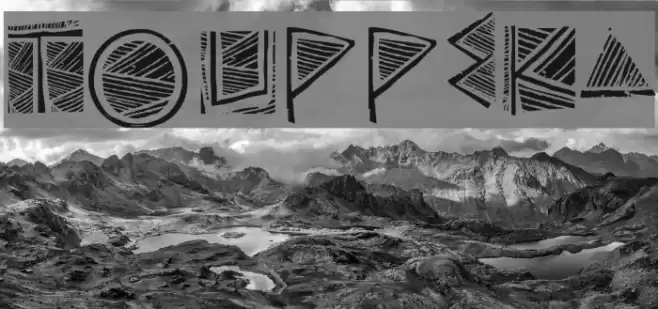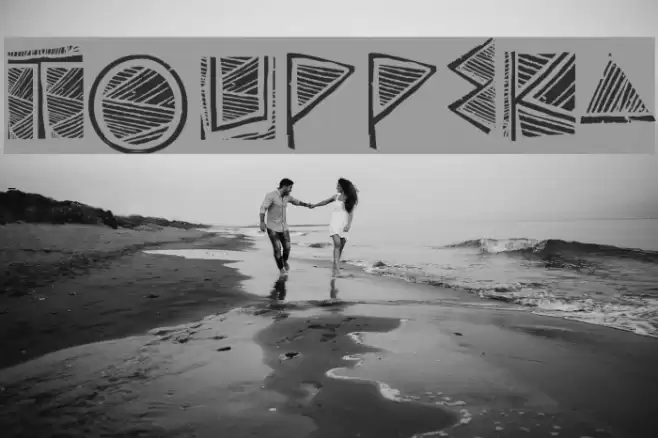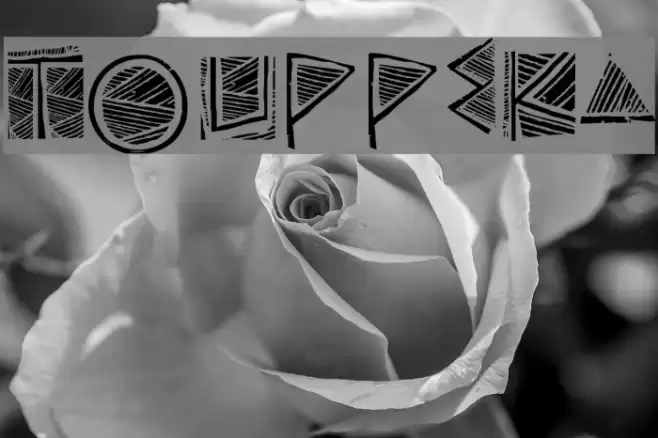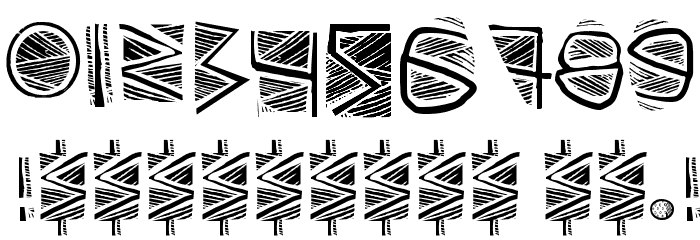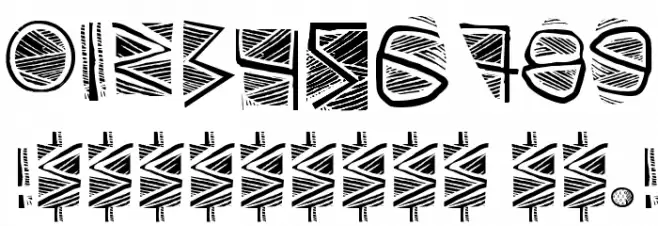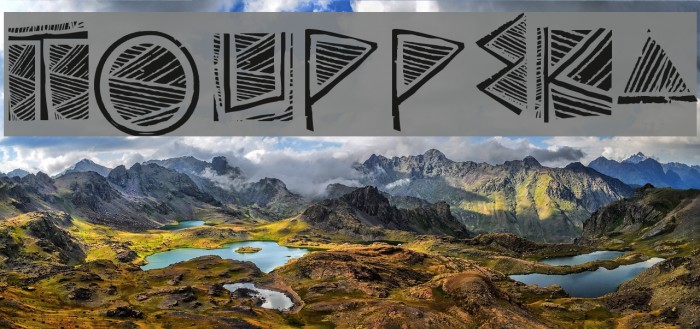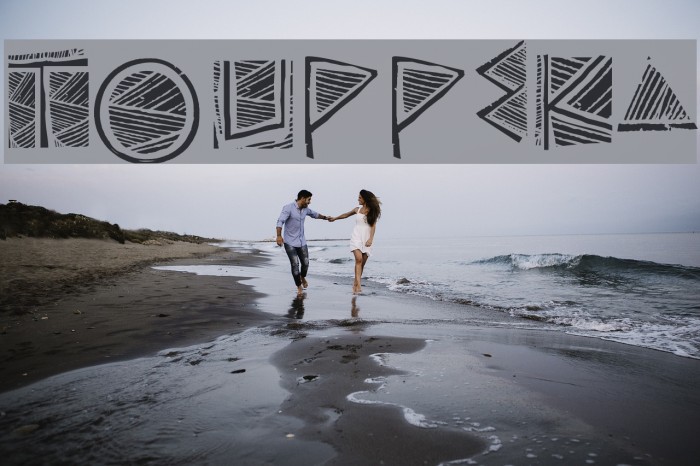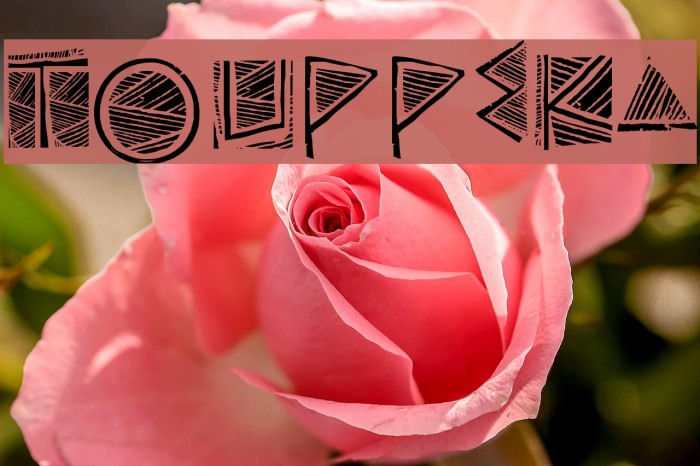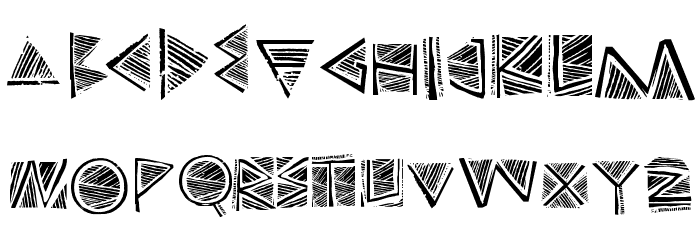
Touppeka Font
Touppeka Description
This font features a bold and dynamic design with a distinct tribal or geometric aesthetic. Each character is constructed with a series of parallel lines and angular shapes, creating a sense of movement and energy. The letters are uppercase and lowercase, with numbers and a selection of special characters, all maintaining the same intricate line pattern. The overall appearance is striking and unconventional, making it ideal for projects that require a unique and artistic touch. The font's style is reminiscent of hand-drawn or etched designs, adding a layer of texture and depth to any text.
A bold, geometric font with a tribal aesthetic and intricate line patterns from Decorative fonts.
- Proposed Projects: Ideal for artistic projects, posters, album covers, or any design needing a bold, unique typeface.